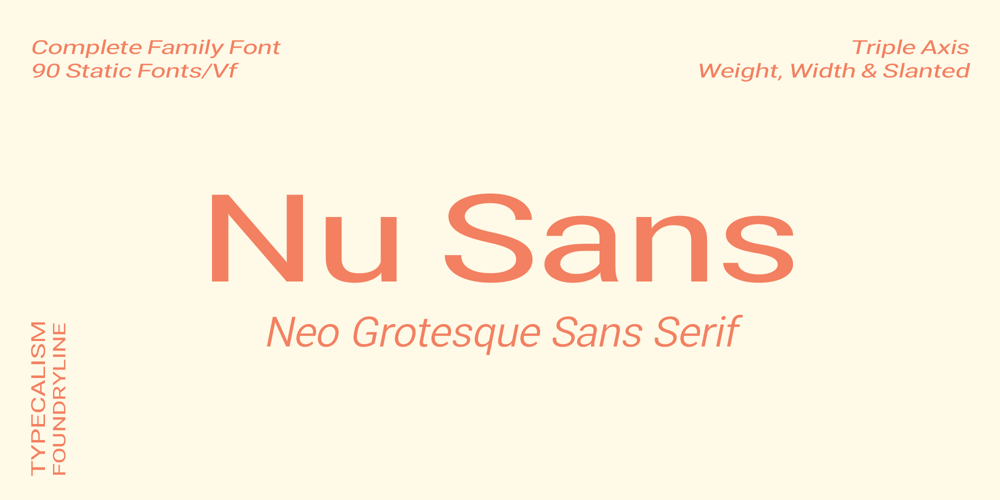
Nu Sans
Nu Sans font
Nu Sans Font Family was designed by Stefie Justprince and published by Typecalism Foundryline. Nu Sans contains 90 styles and family package options. Nu Sans is a modern and stylish sans-serif font product that was created in 2020. It is a versatile typeface that comes with three different axis options: weight, width, and slant, allowing users to create a wide variety of unique and dynamic typography designs.With a total of 90 complete static fonts, Nu Sans offers an extensive range of options for designers looking for a clean and contemporary font choice. The font family features a bold, geometric design with sharp angles and clean lines, giving it a distinct and modern.Nu Sans is perfect for use in a range of design applications, including advertising, branding, editorial design, and web design. Its dynamic and versatile nature makes it a great choice for any project that requires a strong and bold visual impact.a high-quality font product that offers designers a wide range of options and possibilities. Its modern and stylish design, combined with its triple axis options, makes it a great choice for anyone looking for a versatile and unique sans-serif font.